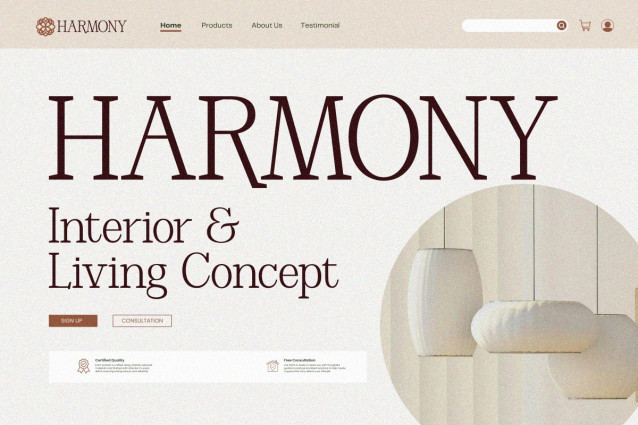
Michine Font is a classic serif display typeface with elegant proportions and refined details. It combines timeless serif aesthetics with a modern touch, making it suitable for premium and professional design projects.
Designed with sophisticated ligatures and balanced letterforms, MICHINE delivers a harmonious and distinctive visual style that stands out in headlines and branding applications.